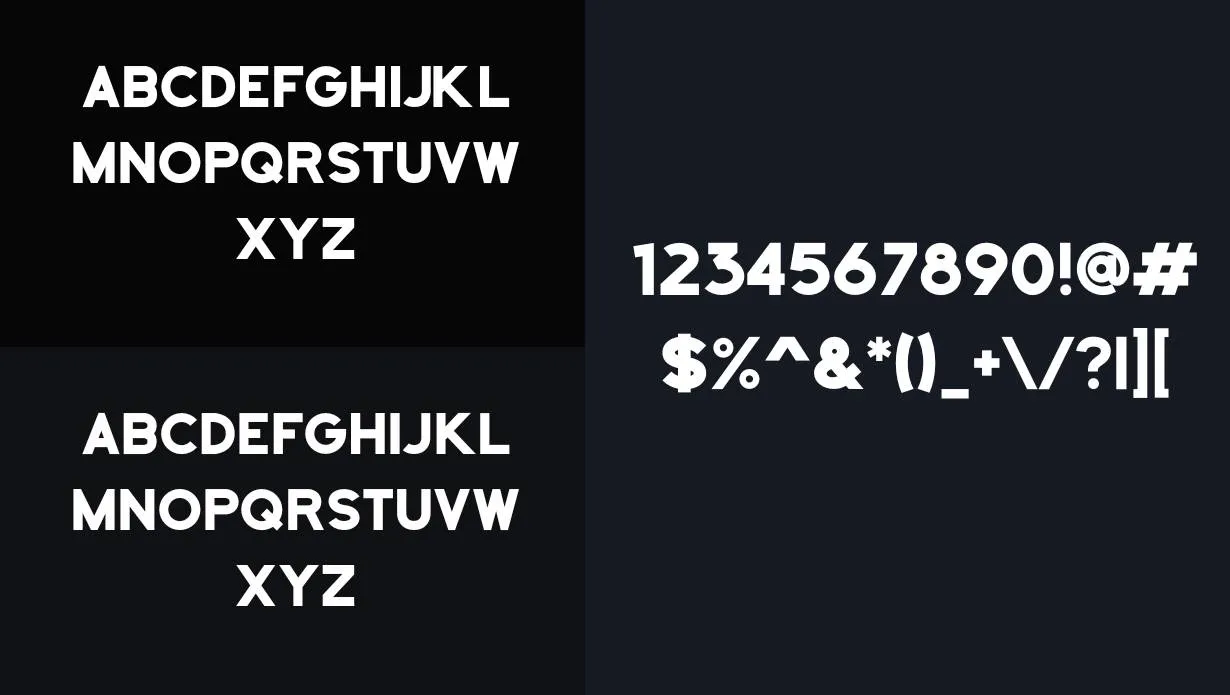
Falco Font carries a bold and impactful presence, making it suitable for projects that demand attention. With its heavy weight and slightly condensed width, this font is ideal for bold headlines, banners, or any design where a strong and commanding aesthetic is desired.
The technical details highlight its bold strokes and sharp edges, ensuring a powerful and memorable impact in your designs. Falco Font is designed to command attention, and each letter is crafted with precision to contribute to the overall bold and assertive visual language.
It is a font that speaks with authority and is perfect for projects that want to make a bold statement.